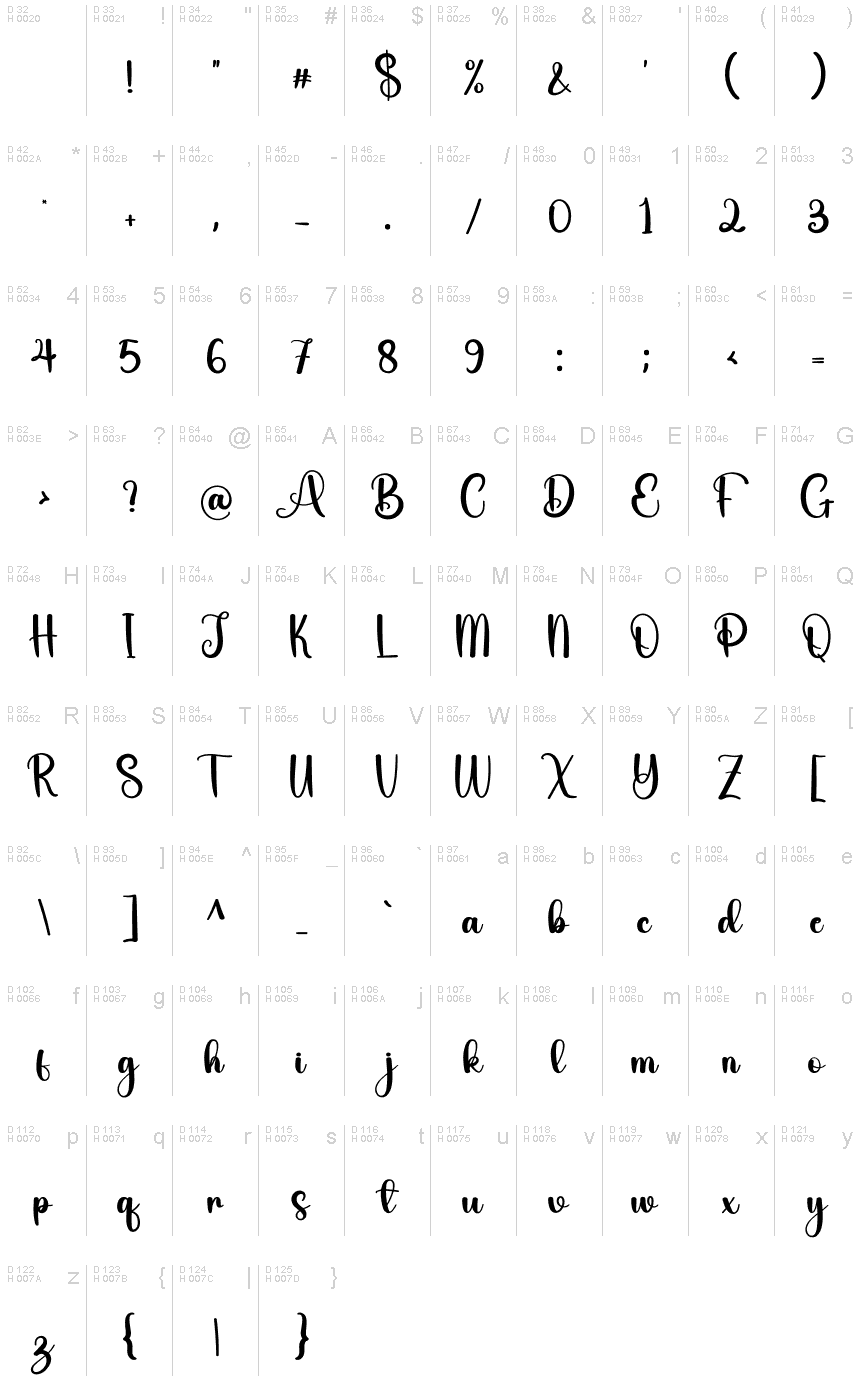
Mechanic
Mechanic, the captivating handwritten font by Harlek Studio, adds a touch of personality and charm to any project. With its semi-bold weight, Mechanic is suitable for a wide range of creative endeavors.
Use it to bring warmth and authenticity to invitations, greeting cards, or wedding stationery. Its rustic yet refined style also makes it ideal for logo design and branding projects seeking a unique and eye-catching look. Whether you're crafting a vintage-inspired poster or designing an album cover, Mechanic effortlessly elevates your creations with its distinctive handwritten flair.